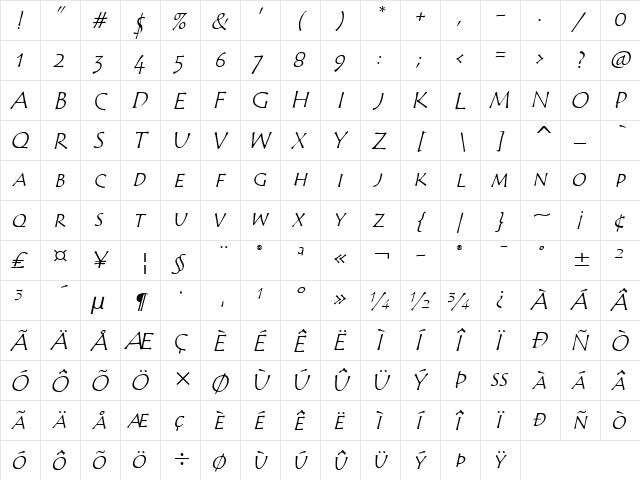
Tempus Sans SC ITC Italic Font Preview
Tempus Sans SC ITC Italic
Tempus Sans SC ITC Italic Font Details
Design Context for Tempus Sans SC ITC Typeface
Tempus Sans SC ITC is a composed and adaptable typeface that performs quietly and consistently across a wide range of design contexts. The slanted form adds forward momentum and visual energy.
Pro Tip: Use Tempus Sans SC ITC for emphasis, pull quotes, and subheadings where its slanted energy can add rhythm to the layout.